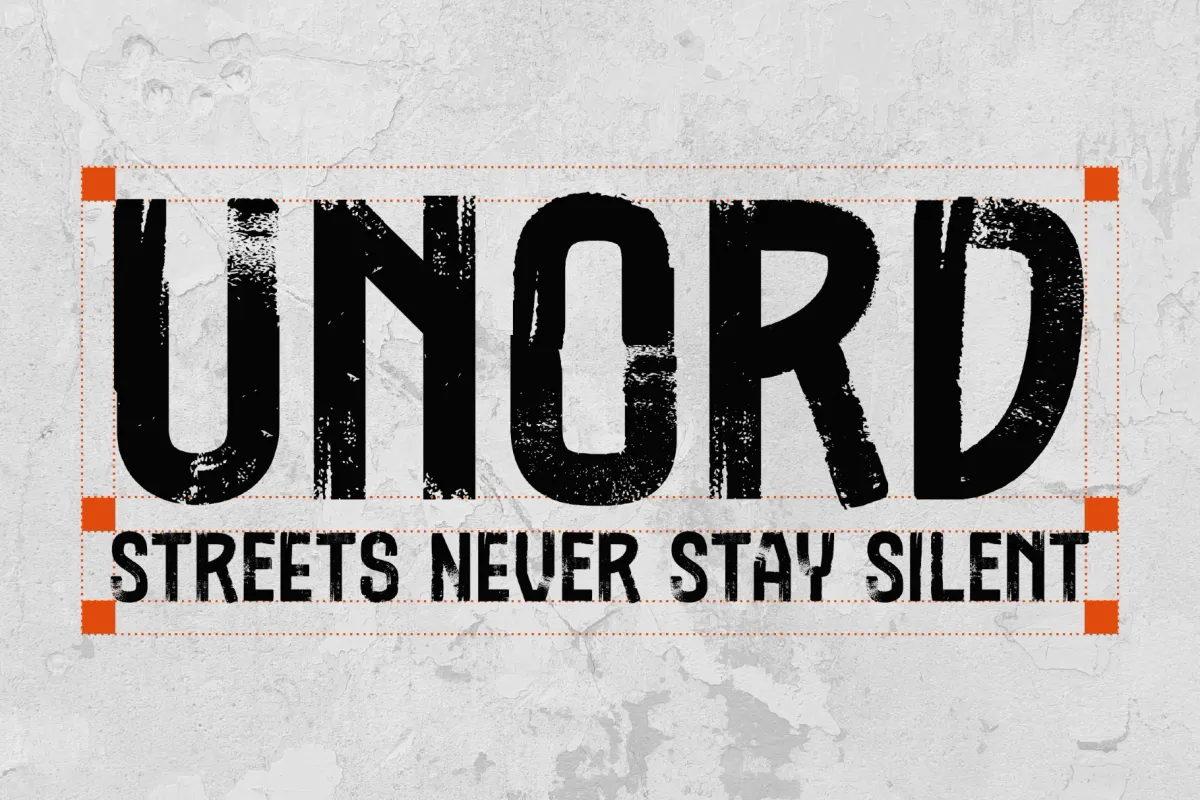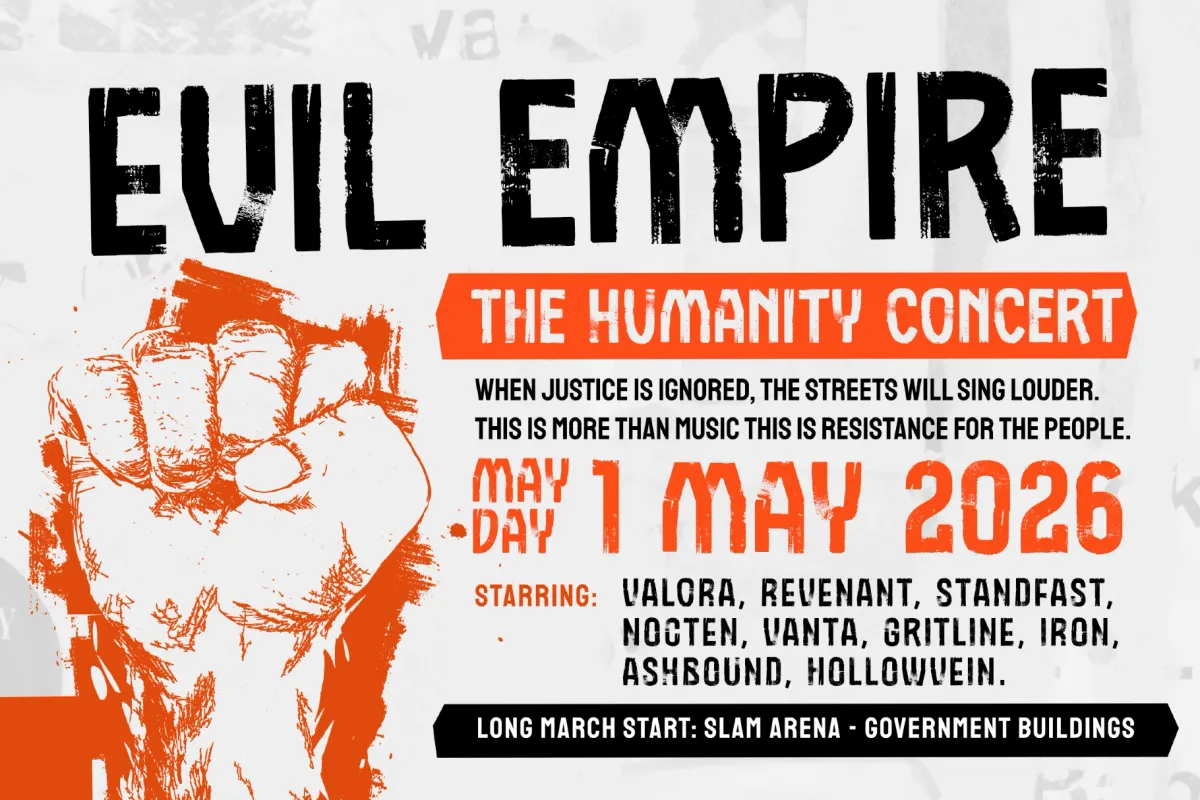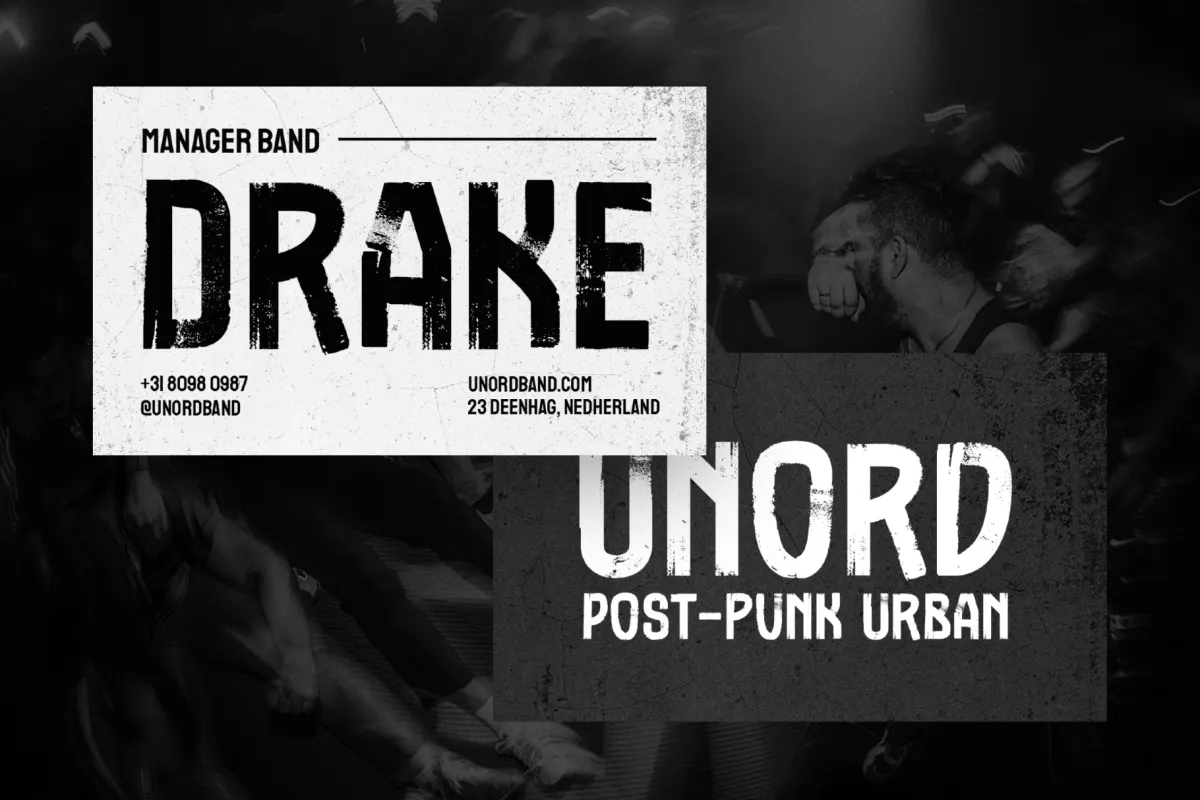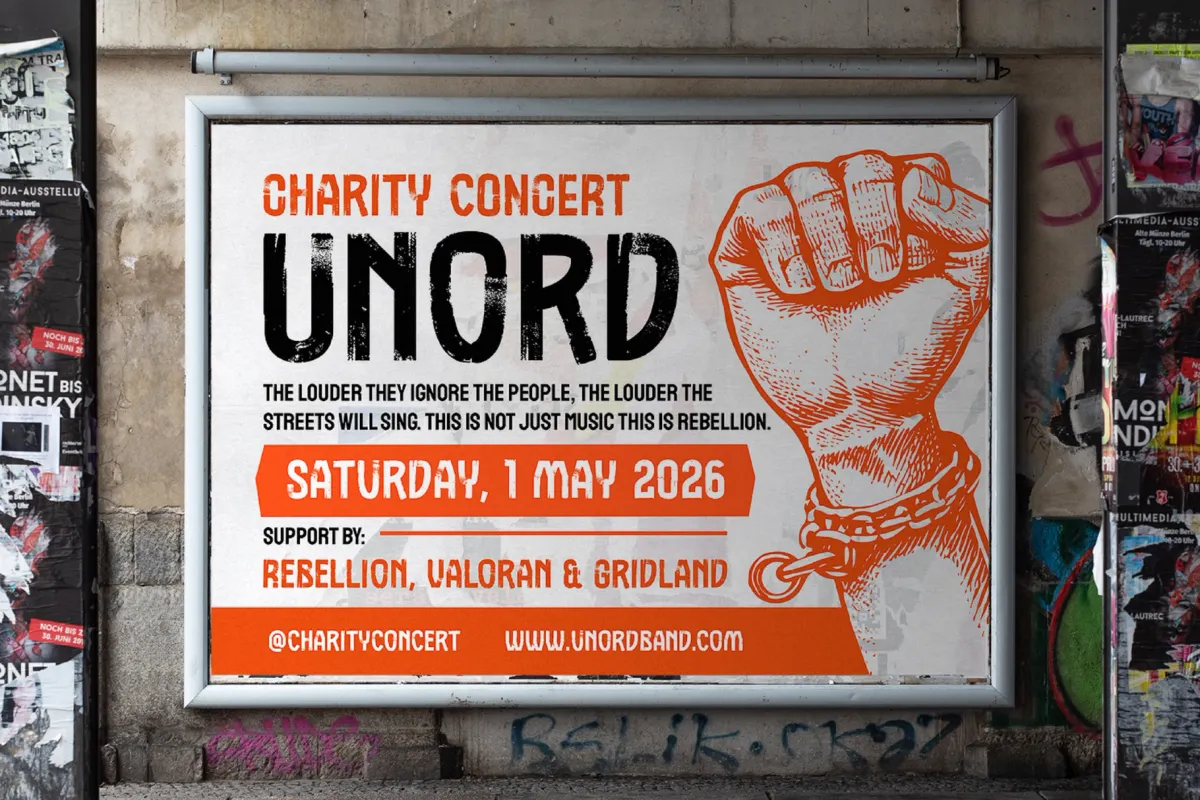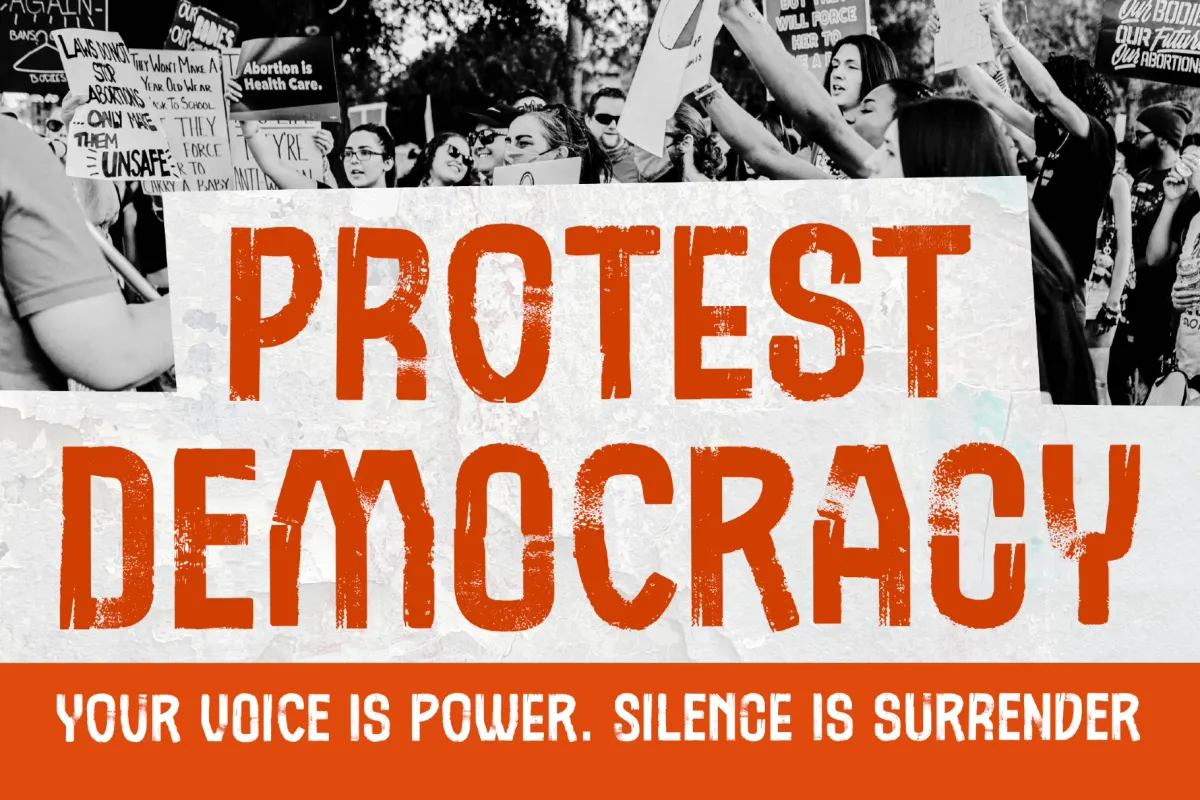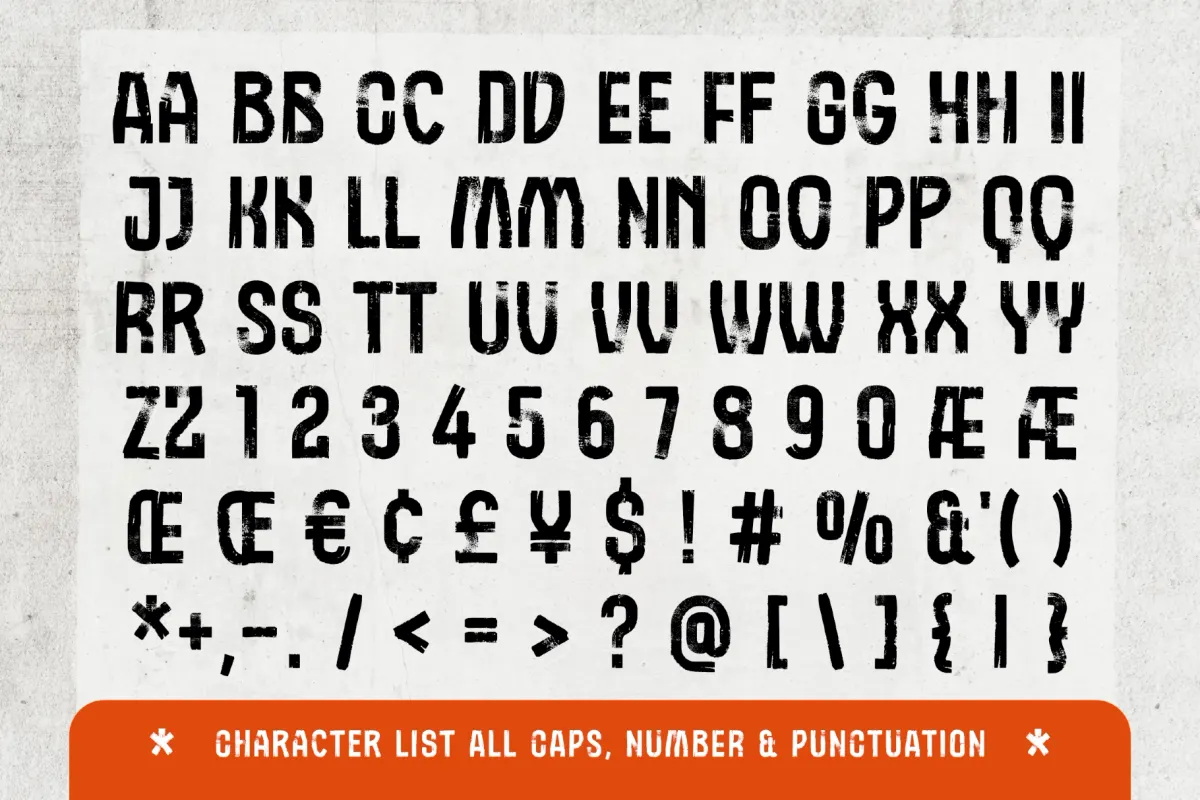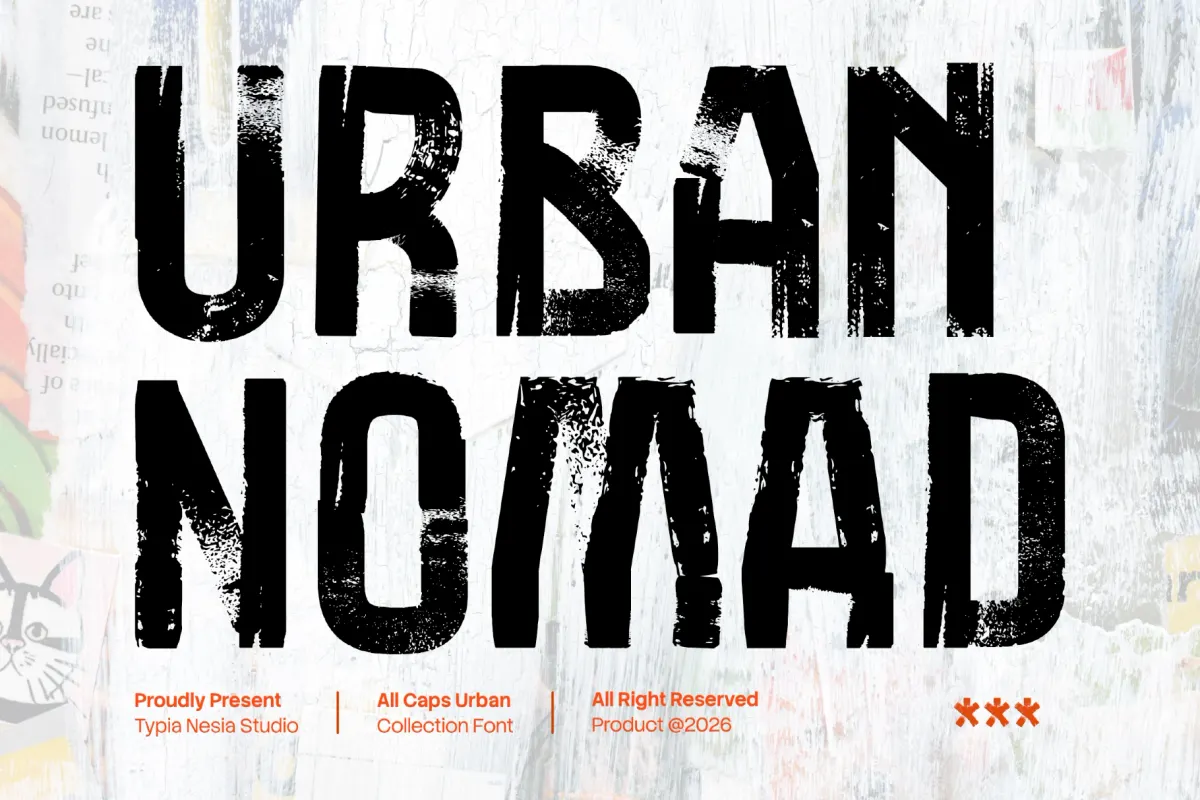
Urban Nomad - Distressed Display Font
Urban Nomad
Urban Nomad cuts through with a distressed, ink-worn edge — every letter looks torn straight off a weathered street poster, closer to stencil-and-spray printing than clean digital type. The strokes carry chipped edges and uneven ink coverage, giving the face a rough, industrial display font character built for headlines that need to dominate at scale.
The texture holds up best in short, punchy lines rather than long paragraphs, where the grit reads as intentional rather than noise. Use it for poster headlines, packaging labels, editorial mastheads, event flyers, and other bold, street-driven layouts.
- uppercase only;
- numerals, punctuation & symbols